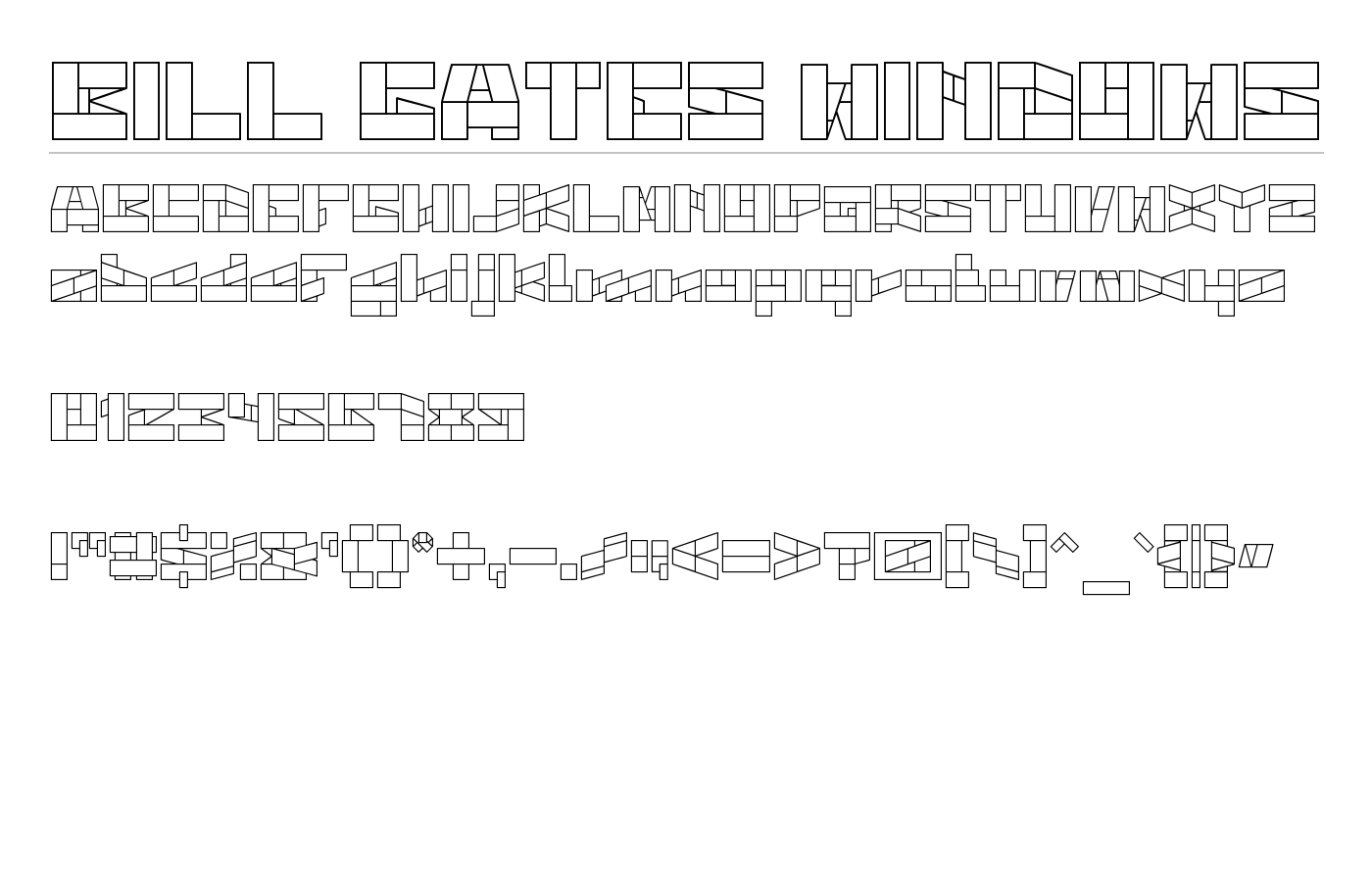
The BILL GATES WINDOWS font is a futuristic, geometric sans serif display typeface characterized by its blocky, outlined letterforms filled with angular internal lines that create a windowpane-like effect. Its bold structure and intricate linear details give it a technical, digital vibe that is perfect for eye-catching headlines, tech branding, and creative design projects seeking a modern, high-tech aesthetic. This font works best in large sizes where its complex shapes can be fully appreciated, adding a distinctive, cutting-edge personality to any visual communication.
BILL GATES WINDOWS Font
About BILL GATES WINDOWS Font